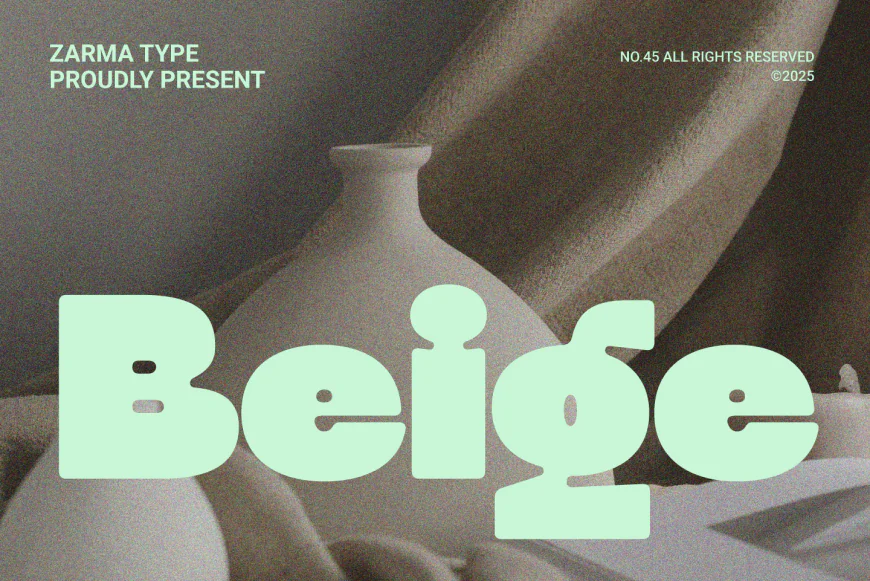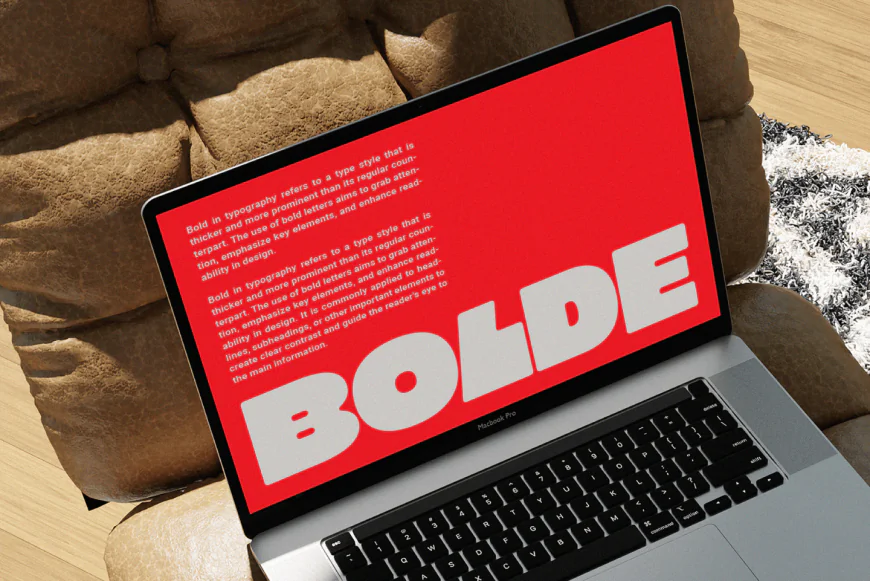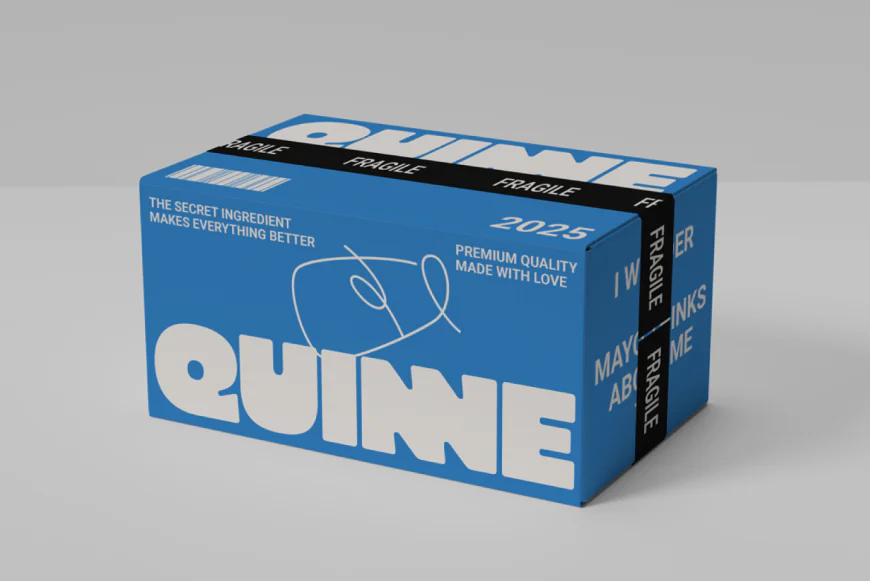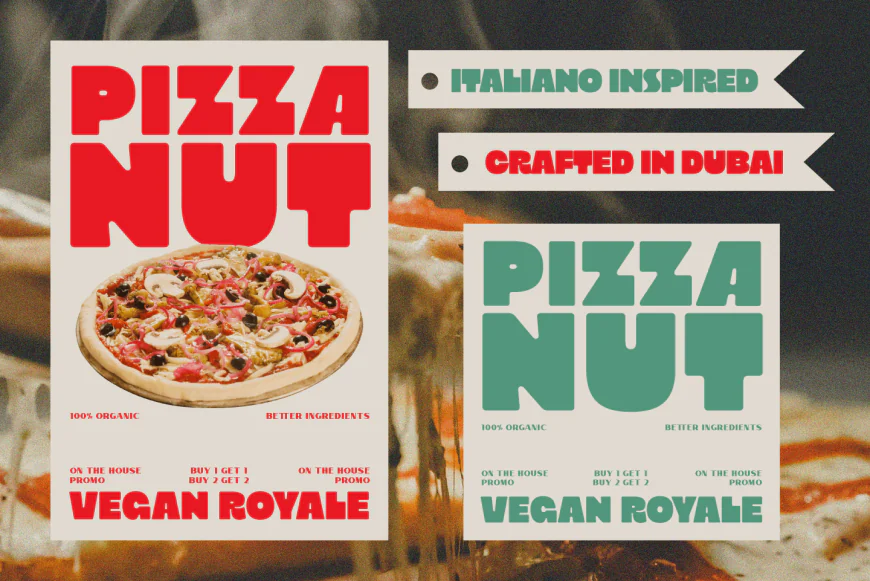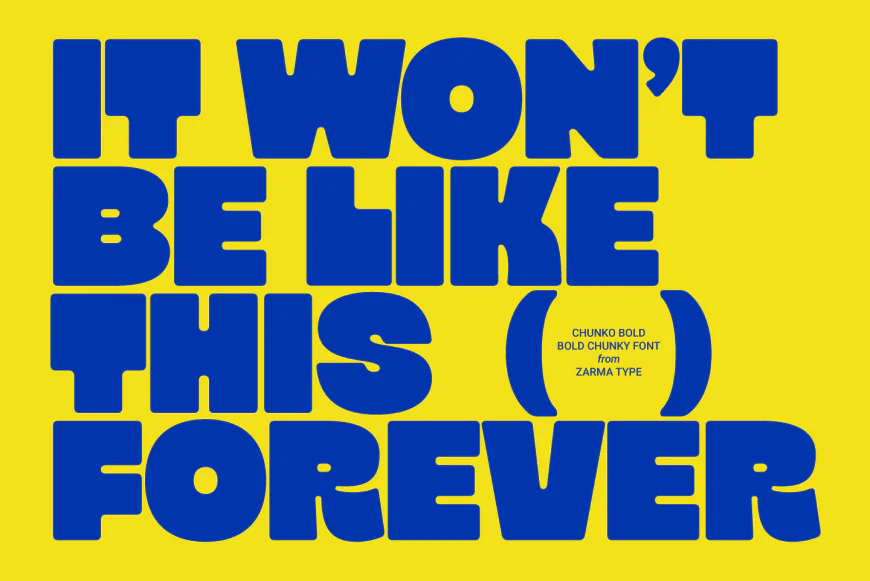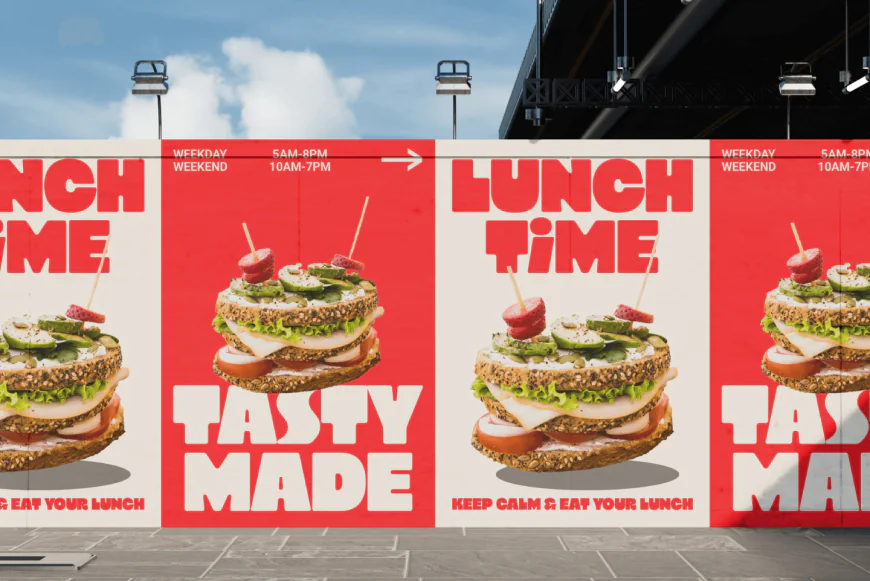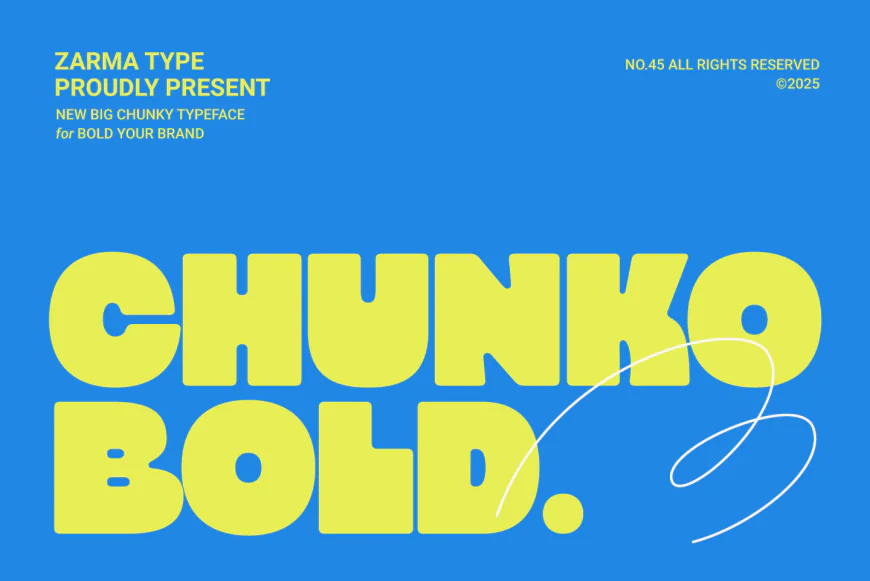
Chunko Bold is a bold sans serif typeface that embodies the essence of bold minimalism, a dominant trend in contemporary design.
Chunko Bold is a bold sans serif typeface that embodies the essence of bold minimalism, a dominant trend in contemporary design. This striking font blends chunky geometry with modern playfulness, featuring rounded edges and a strong presence that perfectly complements today’s minimalist aesthetic. Whether used in bold compositions or clean layouts, Chunko Bold delivers maximum impact while maintaining the principles of minimal design.
With its balanced weight distribution and carefully crafted letterforms, this font shines in minimalist settings where typography becomes the focal point. Each character is meticulously designed to create a cohesive visual rhythm, making it ideal for typography-driven minimal designs that define modern branding and digital spaces.
Perfect for:
- Minimal brand identity and packaging
- Contemporary editorial design
- Bold minimalist layouts
- Modern food and beverage branding
- Clean social media graphics
- Minimal poster design
- Typography-focused digital content
- Modern restaurant menus
Features:
- Stylistic alternates
- Standard and discretionary ligatures
Make a bold statement with Chunko Bold, the perfect typeface for brands embracing the bold minimalism movement. Whether you’re designing clean, typography-driven visuals or impactful minimalist layouts, Chunko Bold strikes the ideal balance between power and simplicity, making it an essential tool for modern designers.